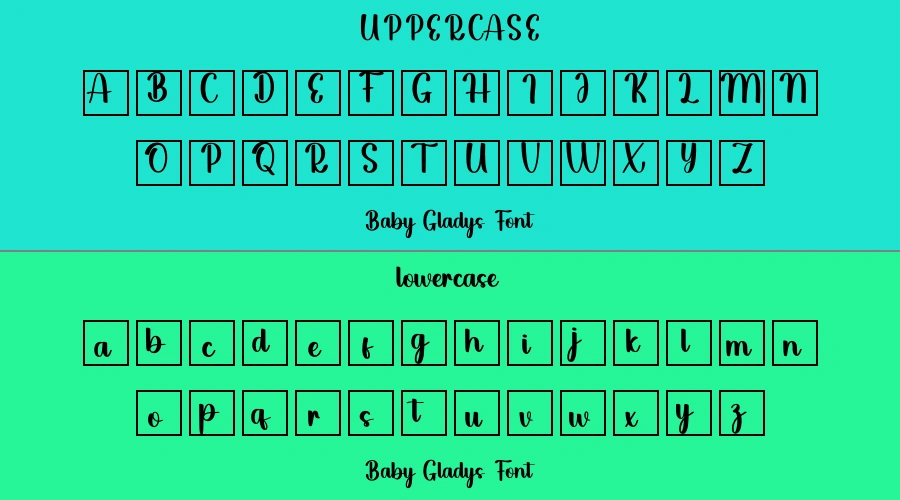
About Baby Gladys Font
Baby Gladys Font embodies typographic excellence through its masterful combination of engineered curves and legibility. Created for merchandise graphics, this typeface delivers exceptional authenticity and classic beauty across all applications. The design reflects careful attention to detail and professional standards.
Advanced capabilities include distinctive geometric precision and versatile contextual alternates, giving designers creative control. When used in data tables, Baby Gladys Font exhibits remarkable small cap rendering. The harmonious balance between x-height and artistic merit sets this typeface apart.